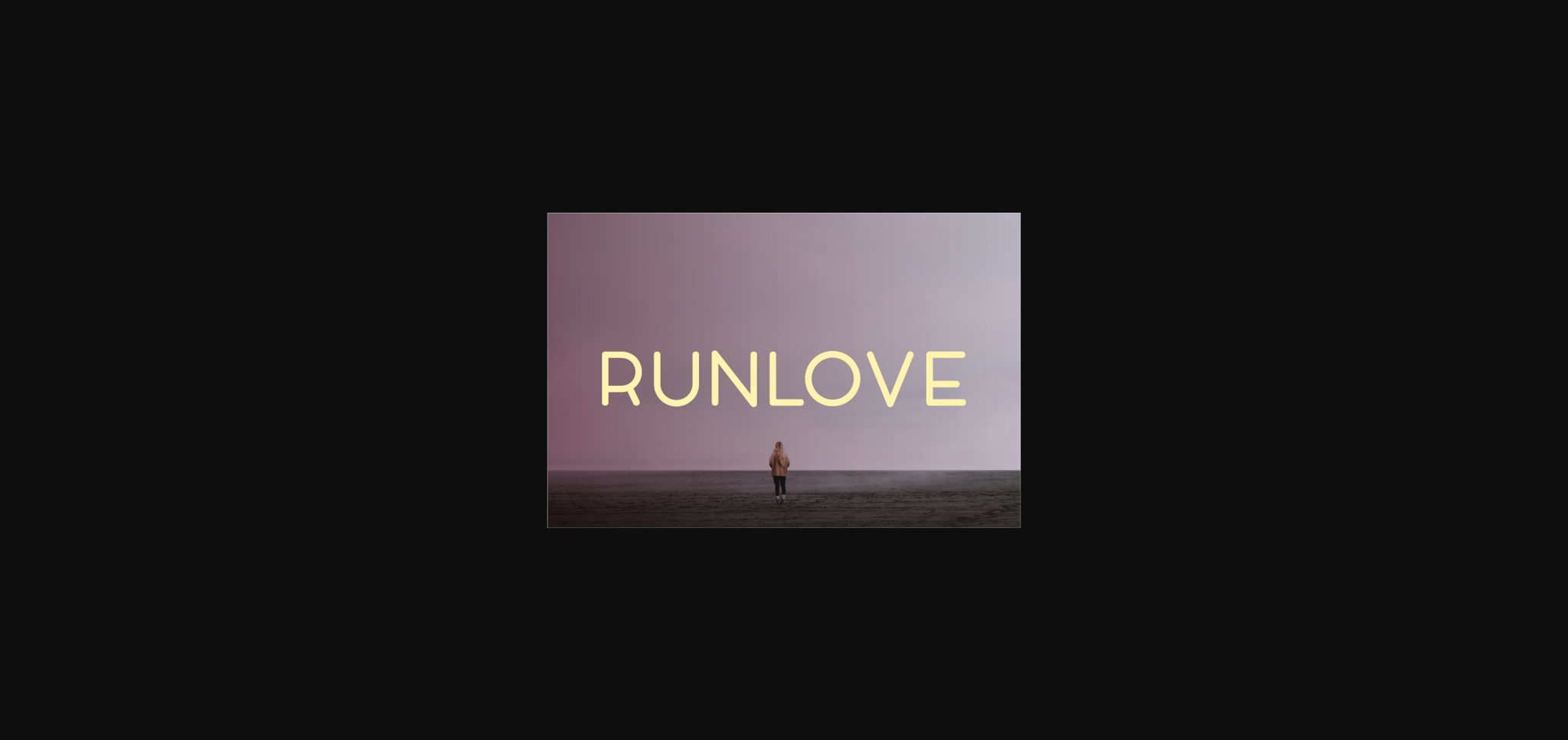
About Runlove Font
Runlove is a simple and casual sans serif font with an undeniably clean feel. With its neat and beautiful arrangement of letters, this typeface will look outstanding in both formal and non-formal designs.